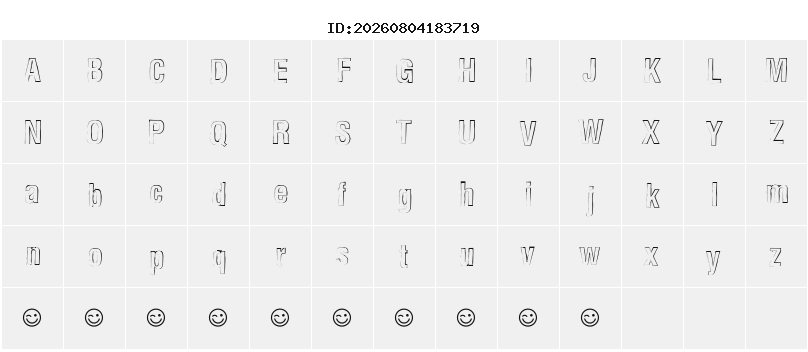
Newside FP Outline Alternate Preview
• Font Name: Newside FP Outline Alternate
• Full Font Name: Newside FP Outline Alternate
• Designer: Azmi Kamarullah
• Manufacturer: Azmi Kamarullah
About Newside FP Outline Alternate.ttf
Newside FP Outline Alternate.ttf is a modern, elegant sans-serif font designed for ultimate readability and visual harmony. Perfect for branding, headlines, web design, and print materials.